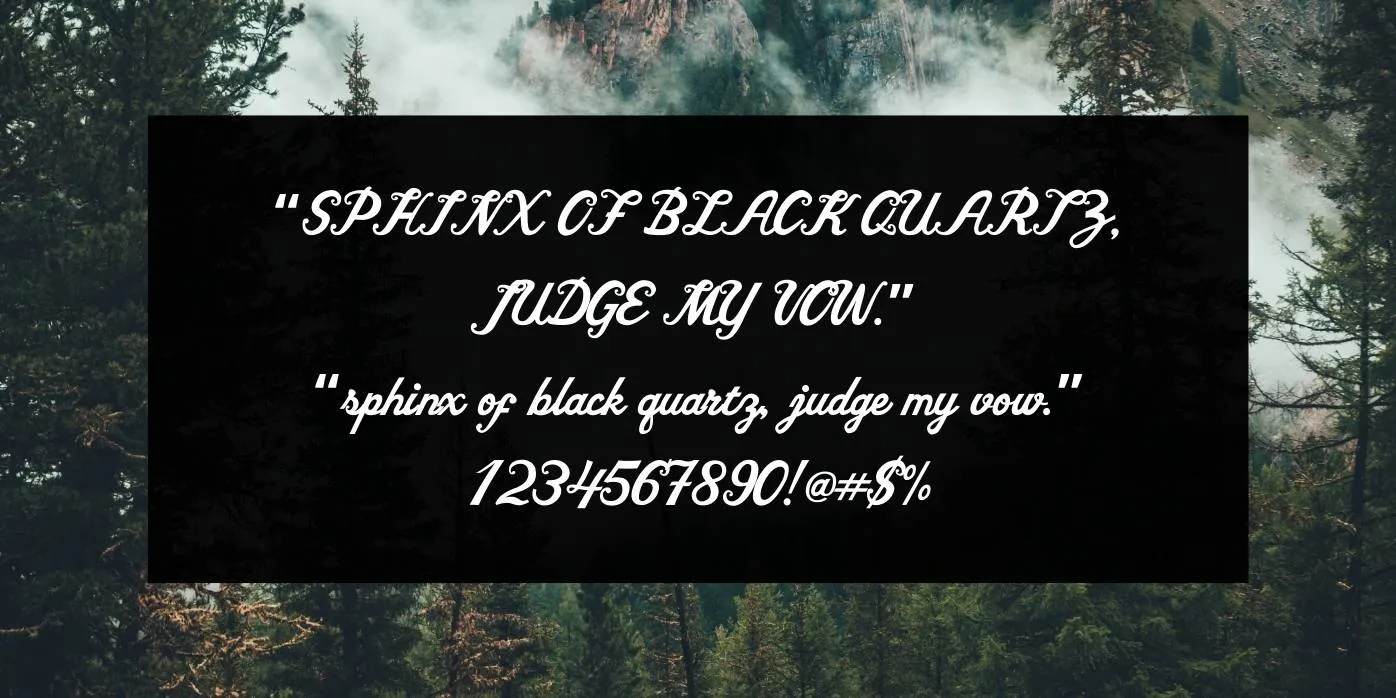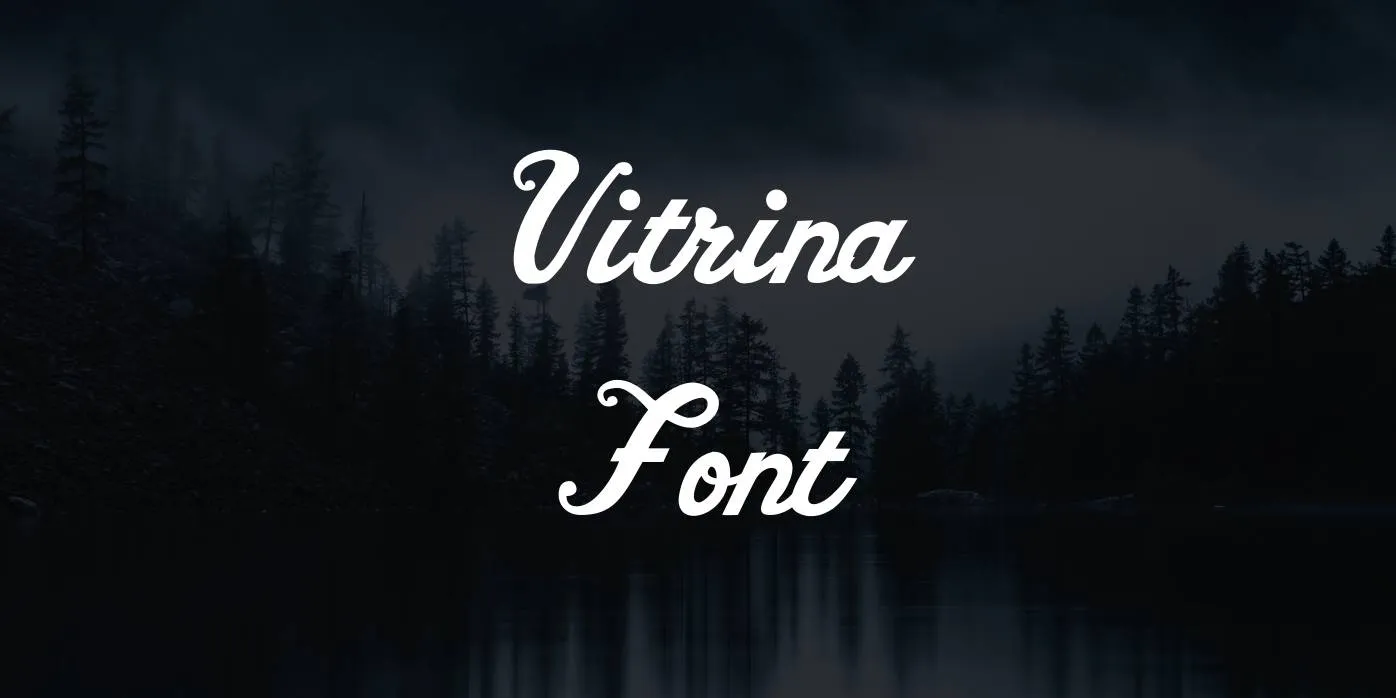
Vitrina Font
Let me introduce you to one of the famous and very attractive fonts named Vitrina Font. This font family is designed by Pablo A. Medina and published by Design is Culture. It contains family package options and 1 style.
The category of this font involves Script, Handwriting, and Signature. The family of this font is Vitrina and the subfamily of this font is regular. This font is found by Design is Culture. Vitrina is a Spanish word that means “storefront window”.
The uniqueness of this font makes it popular. This font is ideal for advertising, wedding invitations, publications, mugs, promotional items, quotations, posters, and many other things that you may use on your major project to make it look absolutely stunning. This font has a large number of glyphs and is available in OTF and TTF file versions. Vitrina Typeface has a collection of numerals, punctuation, swash alternatives, and the collection of small and capital letters.
This font is very close to the ink font. Usage The design community is very familiar with this font family. This typeface was employed by many skilled designers for a variety of intriguing designs, including package design, advertisements, and banner advertisements. Naturally, having a large number of glyphs will allow you to select letters that suit you, with numerous variations and options for each letter, allowing you to personalize your design decisions and support additional languages.
You can easily compare this font with the carosello font. This font is also perfect for logo making, advertising purposes, and display usage. This Vitrina font is versatile in nature. This is one of the best fonts for designing and advertising.
What is the type of Vitrina? It is a Script type font which is designed by Pablo A. Medina and published by Design is Culture. Is Vitrina Font best for advertisements?